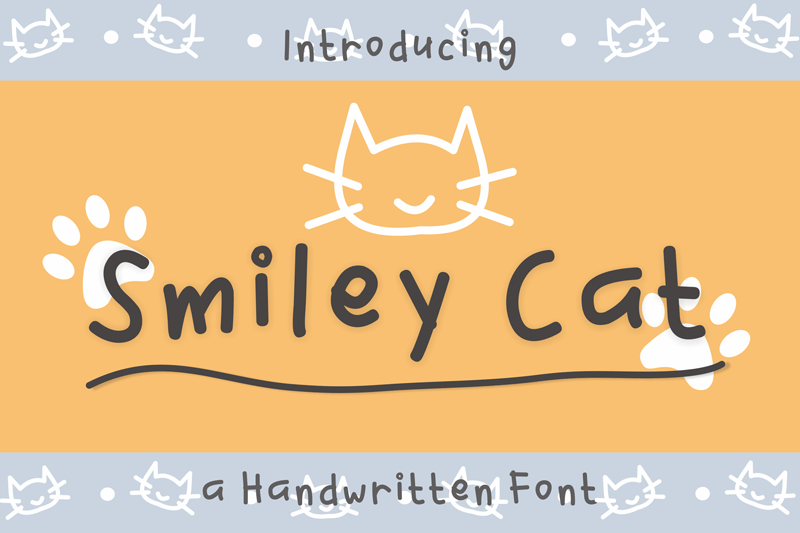
Download Smiley Cat Font Dafonttop It is free for personal use only. if you are going to use it commercially, buy the full version, which comes with kerning, embedding rights, all glyphs (including the 4 & 5) and extras from my site: hanodedfonts . you cannot use this font in games, apps, or software or on . Smiley cat font download is available free from fontget. smiley cat is a script type font that can be used on any device such as pc, mac, linux, ios and android.
Download Smiley Cat Font Fontsme This playful and whimsical font features a handwritten style with a casual and friendly appearance. the letters are slightly irregular, giving it a personal touch that mimics natural handwriting. Download smiley cat font for pc mac for free, take a test drive and see the entire character set. moreover, you can embed it to your website with @font face support. Download dk smiling cat font for windows and mac. dk smiling cat font was designed by hanoded and has been downloaded 4,831 times. Smiley font. found 7 free fonts hand faces st font 1 style, by this font is an.
Download Smiley Cat Font Fontsme Download dk smiling cat font for windows and mac. dk smiling cat font was designed by hanoded and has been downloaded 4,831 times. Smiley font. found 7 free fonts hand faces st font 1 style, by this font is an. This font features a playful and casual handwritten style with rounded edges and a slightly uneven baseline. the characters are bold and have a friendly, approachable appearance, making it ideal for informal and fun designs. Smiley cat font belongs to regular subfamily. the author of the font is unknown. the font version is version 1.000 and its license is: unknown. Smiley cat font family designed by unknown designer has a total of 1 different styles. you can download the smiley cat font to your computer or use it on your website. Download the latest smiley cat font for windows, mac, & linux exclusively at font canyon. click now for easy and fast installation.
Smiley Cat Font Font Canyon This font features a playful and casual handwritten style with rounded edges and a slightly uneven baseline. the characters are bold and have a friendly, approachable appearance, making it ideal for informal and fun designs. Smiley cat font belongs to regular subfamily. the author of the font is unknown. the font version is version 1.000 and its license is: unknown. Smiley cat font family designed by unknown designer has a total of 1 different styles. you can download the smiley cat font to your computer or use it on your website. Download the latest smiley cat font for windows, mac, & linux exclusively at font canyon. click now for easy and fast installation.